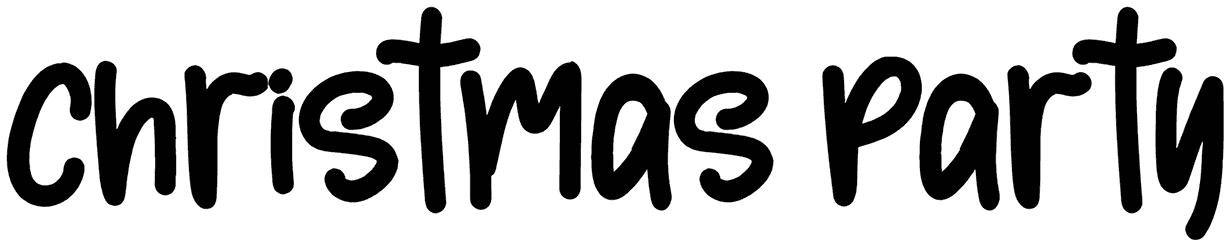
Christmas Party Font
Christmas Party is an imitation of a crooked handwriting whose slips make it suitable for more informal work. By using this script font, you can give your architecture a simple and ordinary feeling.
There are deliberate inaccuracies in the design of this font, which can diminish its serious and official nature. For this reason, it is mostly used in places such as invitations and wedding cards, where human relations are very prominent.